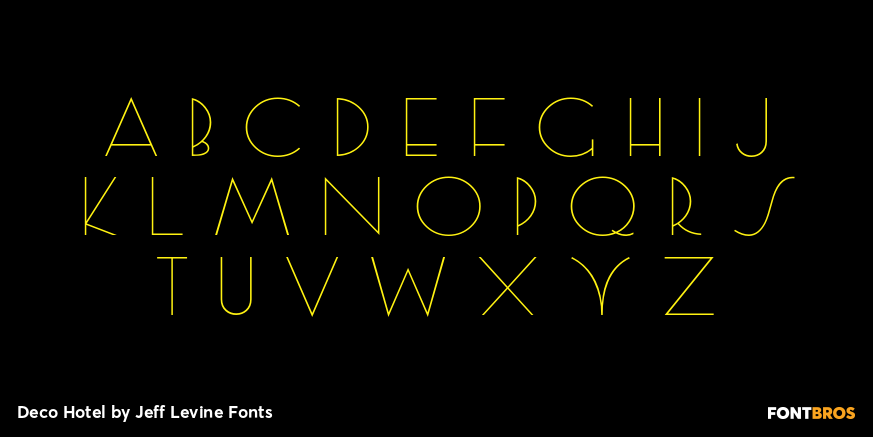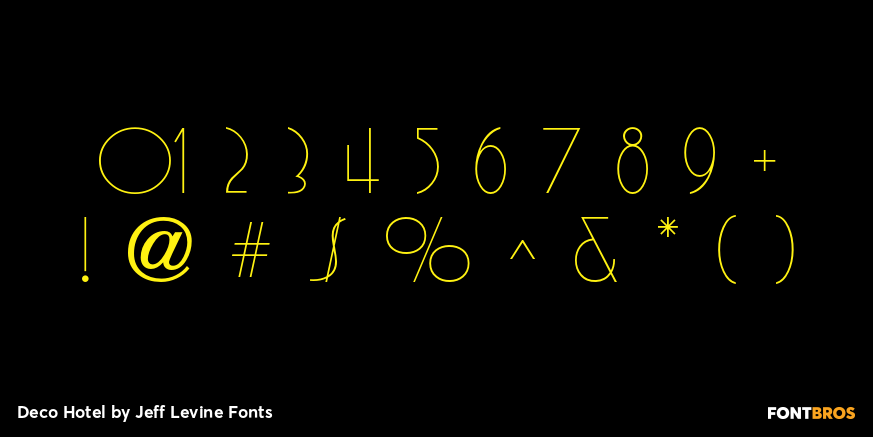
Deco Hotel
Hand lettering on the Art Deco-era sheet music for a song entitled 'Rosemary” was the model for this delicate monoline design called Deco Hotel JNL.